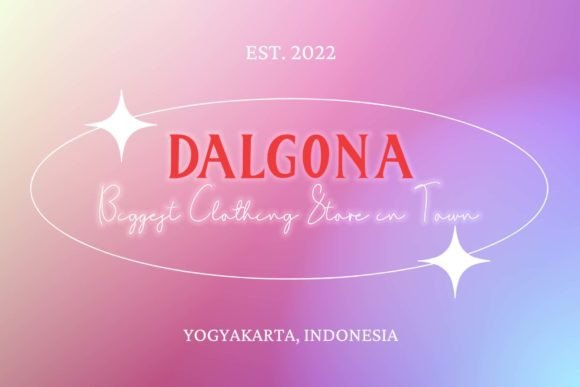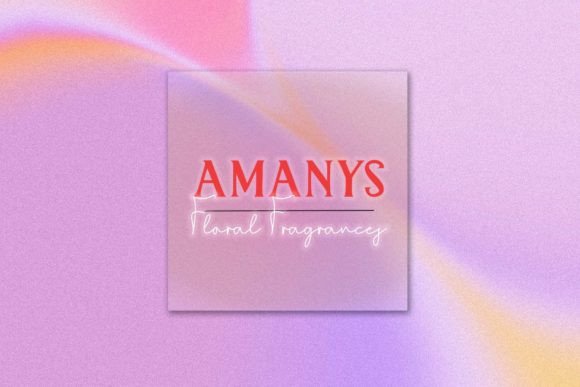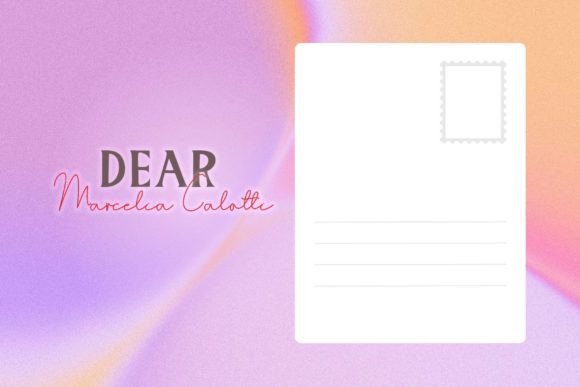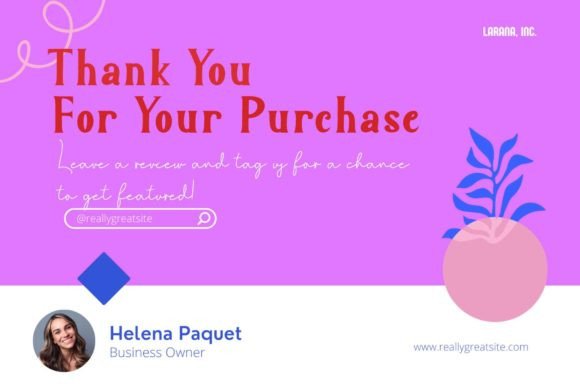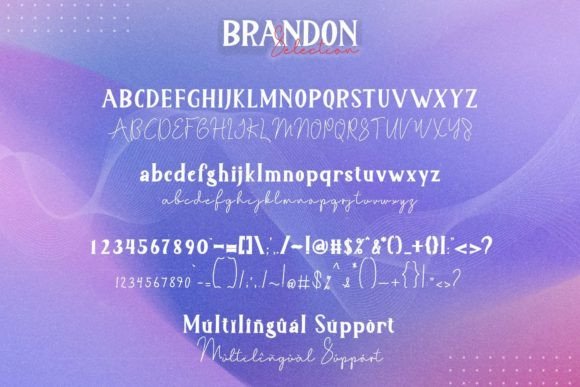
The Perfect Blend: Unveiling the Elegance of the Brandon Selection Font
Have you ever found yourself scrolling through design inspiration boards, searching for that one perfect font to elevate your brand’s visual identity? The moment you lay eyes on the Brandon Selection Font, you’ll know you’ve struck gold. Its sleek, modern design effortlessly blends the sophistication of serif and monoline fonts, creating a truly unique aesthetic that’s sure to turn heads.
This elegant duo font is more than just a pretty face – it’s a versatile tool designed to help you craft stunning logos, business branding, banners, and more. With its PUA encoding, you’ll have access to a world of creative possibilities, from intricate swashes to bold typography. Whether you’re a seasoned designer or just starting out, the Brandon Selection Font is an invaluable addition to your toolkit.
- Font Family: Brandon Selection is a serif font, designed by Carter and Cone in 1940.
- Unique Characteristics: Brandon Selection features a classic, elegant design with strong vertical stress and subtle flair at the terminals, making it ideal for body text and book titles.
I recently had the chance to work with the Brandon Selection Font, and I have to say, it’s been an interesting experience.
- Unique aesthetic: The Brandon Selection Font has a distinct, classic look that sets it apart from more common fonts.
- High legibility: Despite its ornate design, the font is surprisingly easy to read, making it a great choice for body text.
- Well-suited for formal applications: The Brandon Selection Font is perfect for documents, reports, and other formal materials where a touch of elegance is desired.
- Limited versatility: While the font looks great in formal contexts, it may not be the best choice for more casual or creative projects.
- Not ideal for small text sizes: The font’s intricate design can make it difficult to read at smaller text sizes, which may limit its use in certain applications.
The Brandon Selection Font is a solid choice for those looking for a classic, elegant look. While it may not be the most versatile font, it’s well-suited for formal applications and can add a touch of sophistication to any document or project.
To get the most out of Brandon Selection Font, use it in conjunction with bold or italic text to create a visually appealing contrast.
Also, experiment with different font sizes to create a balanced and harmonious design.
Brandon Selection Font is commonly used in:
Logos and branding materials
Brochures and flyers
Business cards and letterheads
Infographics and data visualizations